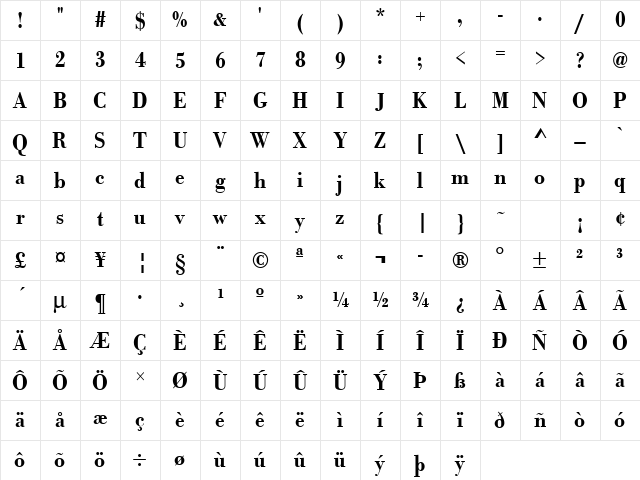
URWBodoniTMedExtNar Regular
URWBodoniTMedExtNar Family
URWBodoniTMedExtNar Regular
URWBodoniTMedExtNar Regular Font Preview
URWBodoniTMedExtNar Regular Uppercase Preview
URWBodoniTMedExtNar Regular Lowercase Preview
URWBodoniTMedExtNar Regular Numeric Preview
URWBodoniTMedExtNar Regular Character Map
Complete URWBodoniTMedExtNar Regular glyph index. Displaying only characters natively supported by URWBodoniTMedExtNar Regular font.
URWBodoniTMedExtNar Regular Character Map
Design Context for URWBodoniTMedExtNar
URWBodoniTMedExtNar is a composed and adaptable typeface that performs quietly and consistently across a wide range of design contexts.